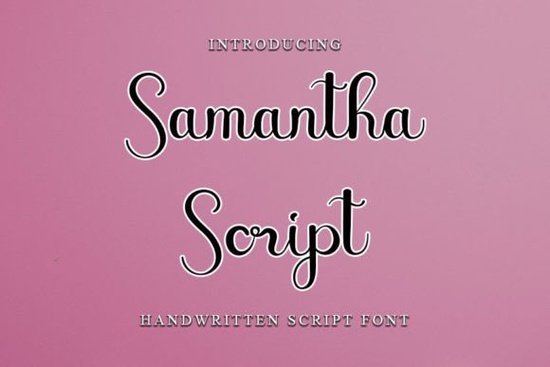
If you’re looking for a typeface that feels both personal and polished, Samantha Script font is a solid choice. It blends the charm of classic calligraphy with the relaxed vibe of modern handwriting. The result is a font that works for wedding invitations, product labels, social graphics, and even branding for small shops.
What makes Samantha Script different from other script fonts?
Many script fonts either lean too formal or too messy. Samantha Script hits a sweet spot. The letters are connected smoothly but have a natural bounce that keeps them from looking stiff. The thick-to-thin strokes are balanced, so it reads clearly even at smaller sizes. This makes it useful for both headlines and body text in short projects.
If you often work with handwritten styles, you might also like the casual feel of Succuline Single Line font for a more drawn look, or the playful curves of Bunny font when you need something whimsical. Each has its own personality, but Samantha Script stands out because it keeps that upscale calligraphy feel without being hard to read.
Where can I use Samantha Script font?
This font adapts to many creative projects. Here are practical ways to use it:
- Wedding stationery – Save-the-dates, invitation envelopes, and seating charts. Pair it with a rustic wedding font for a rustic theme or with a clean sans serif for a modern contrast.
- Print-on-demand products – Tote bags, mugs, and t-shirts with short quotes or monograms. The friendly letters catch attention without overwhelming the design.
- Social media graphics – Instagram quote posts, Pinterest pins, and YouTube thumbnails. The font adds a handcrafted touch to digital content.
- Small business branding – Logo mockups, menu headers, and thank-you cards. It gives a personal feel that customers often associate with boutique quality.
- Planner and journal covers – Bullet journal titles, sticker designs, or notebook covers. The legible script helps titles stand out while keeping a handmade aesthetic.
If you need a script that works across these formats, Samantha Script is versatile enough to fit. For a more calligraphic alternative, see the elegant Almond Script font or the structured lettering of Writing Book font.
Is Samantha Script easy to read in long paragraphs?
Script fonts are rarely used for long-form reading, but this one holds up better than most. The open counters and consistent slant help the eye follow the words without strain. Use it for short passages like product descriptions, taglines, or pull quotes. Avoid setting entire blog posts or eBooks in it, but it works fine in small doses.
For printed projects, test it at different sizes. At 12–14 pt it’s still readable for a few lines. At larger sizes, the flourishes add elegance.
How does Samantha Script compare to other popular handwritten fonts?
It’s less rigid than copperplate styles and more refined than rough brush scripts. Compared to Succuline Single Line, Samantha Script has thicker downstrokes, giving it more visual weight. Next to Bunny font, it’s more formal but still approachable. The difference is in the details: Samantha Script keeps consistent x-height and baseline even with its natural flow.
- ✔ Pair it with a simple sans serif (like Lato or Montserrat) for balance.
- ✔ Use it on a light background for best contrast – avoid heavy textures behind it.
Once you’ve explored what Samantha Script can do, try combining it with other script styles from the same library. Start with a simple project like a greeting card or a social media quote post. You’ll see quickly how natural and friendly this font can make your work feel.